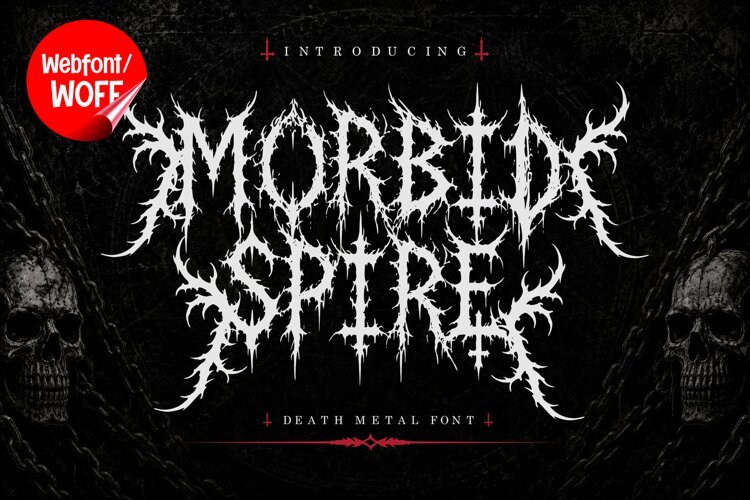
Bring a brutal, aggressive, and dark underground atmosphere directly to your digital platforms using this specialized death metal webfont. This menacing and thorny display typeface is specifically crafted to give heavy metal band websites, extreme music blogs, dark art portfolios, and gothic e-commerce stores a terrifyingly striking visual appeal.
Transform your website into a dark, chaotic digital sanctuary with this extreme metal display web font!
Morbid Spire Webfont